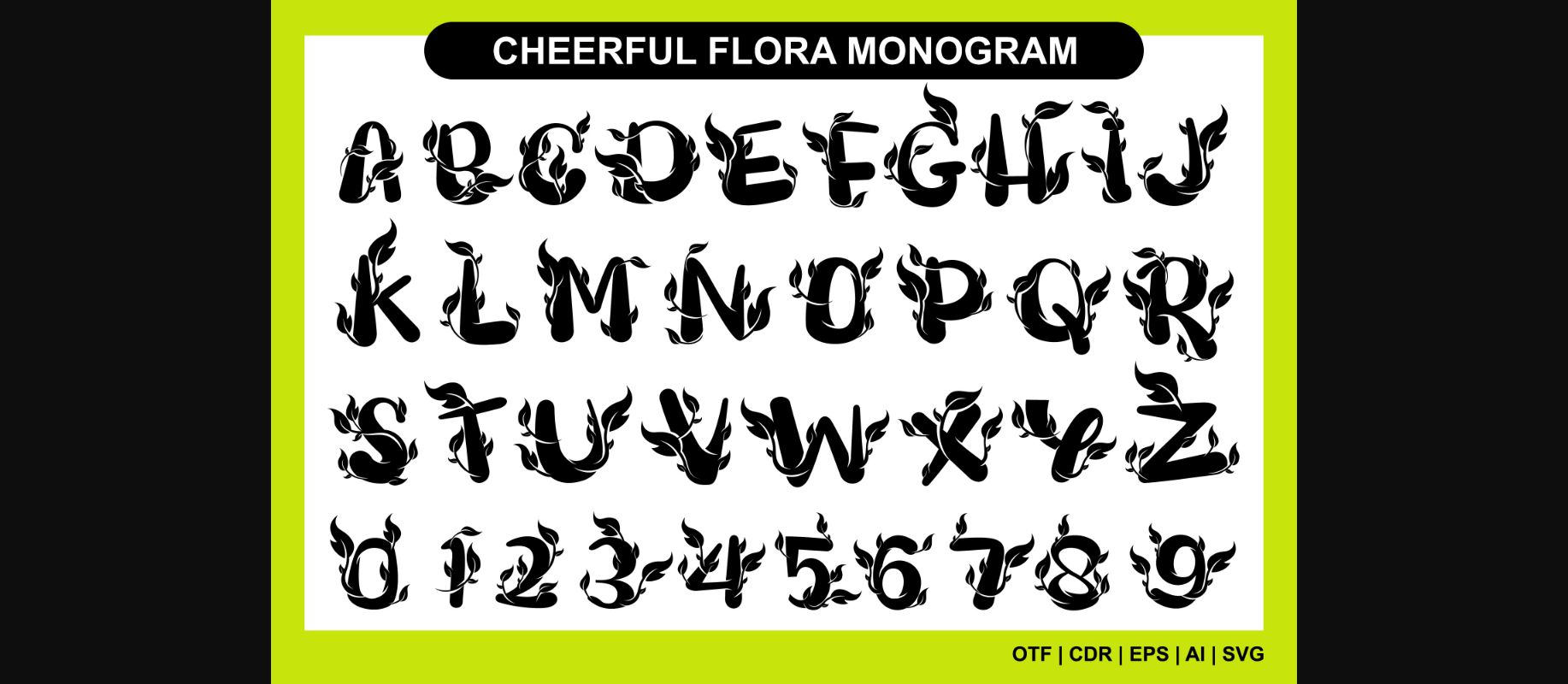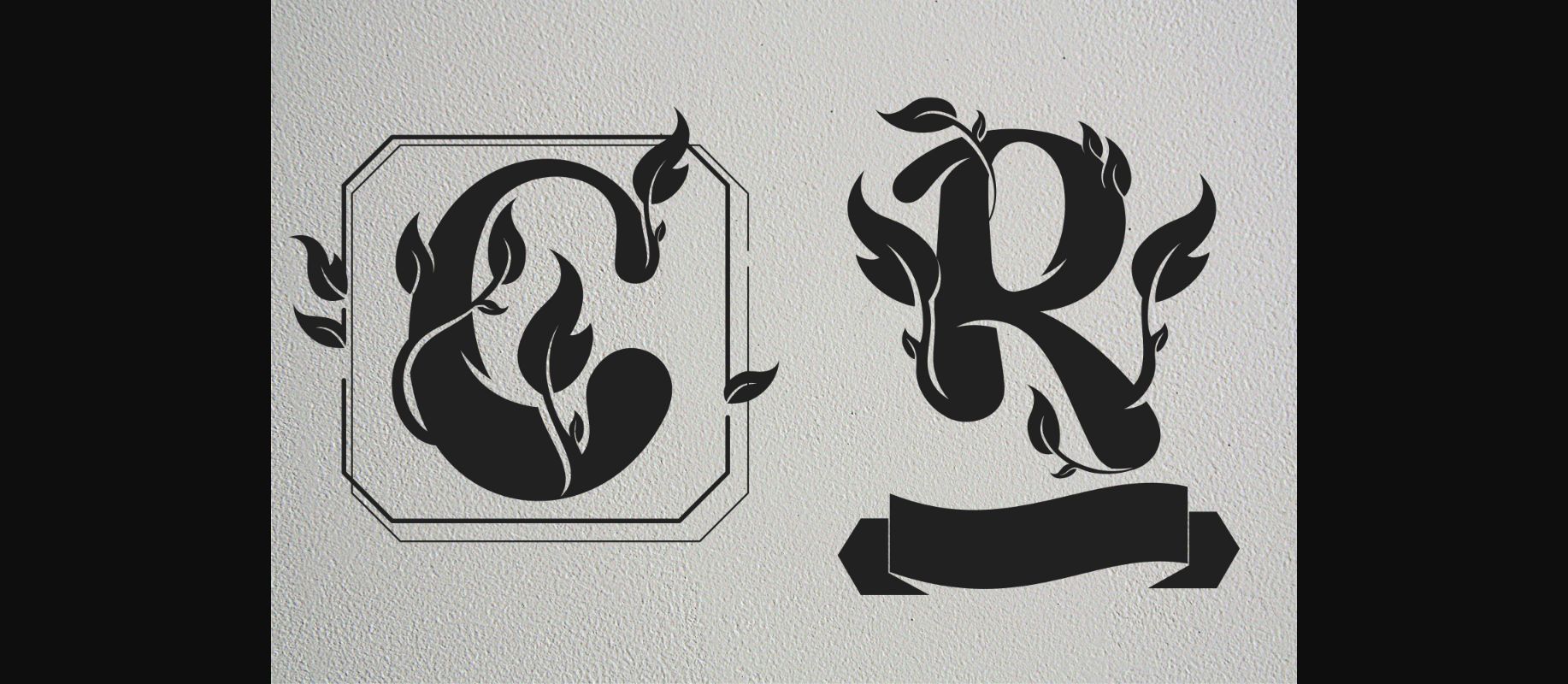
Cheerful Flora Monogram Font
About Cheerful Flora Monogram Font
Cheerful Flora Monogram is a sweet decorative font, featuring lovely leaf ornaments. Add this fresh and lovely-looking font to each of your gorgeous wedding invitations, beautiful stationary art, eye-catching social media posts, and cute greeting cards.